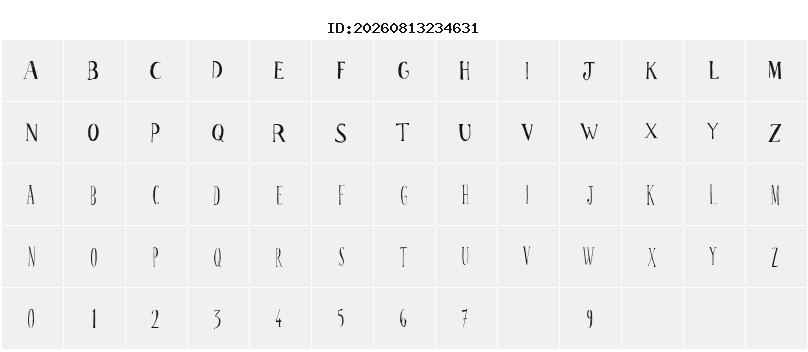
scrabionau Preview
• Font Name: scrabionau
• Font ID: patchpographics: scrabionau: 2016
• Full Font Name: scrabionau
• PostScript Name: scrabionau
• Character Count: 207
• Designer: patchpo
• Manufacturer: patchpographics
About scrabionau.ttf
scrabionau.ttf is a modern, elegant sans-serif font designed for ultimate readability and visual harmony. Perfect for branding, headlines, web design, and print materials.